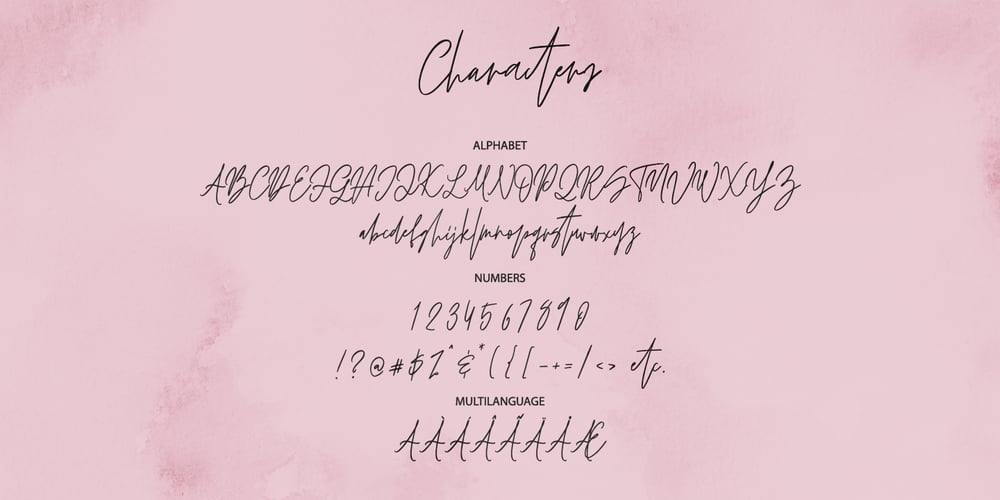
Oh November Font Family was designed by Dmitrii Chirkov and published by Supfonts. Oh November contains 1 styles and family package options. This new font was inspired by the game with different signature styles. I also added 102 ligatures to it. The result is a light and nice font that looks completely hand-drawn. Oh November will look beautiful on Christmas and holiday invitations, wedding invites and stationery, logos, and more. I love using it for emphasis words and pairing it with serifs Check out my blog: https://www.instagram.com/zloillev pinterest.com/dmitriychirkov7